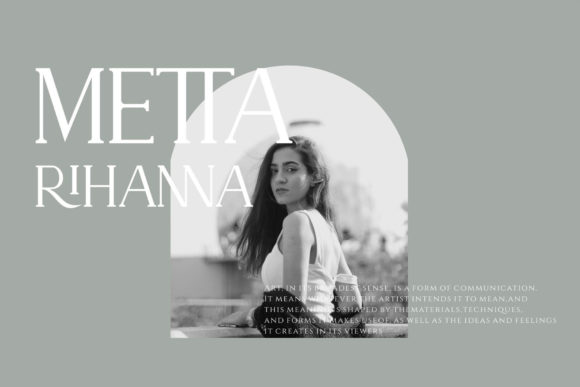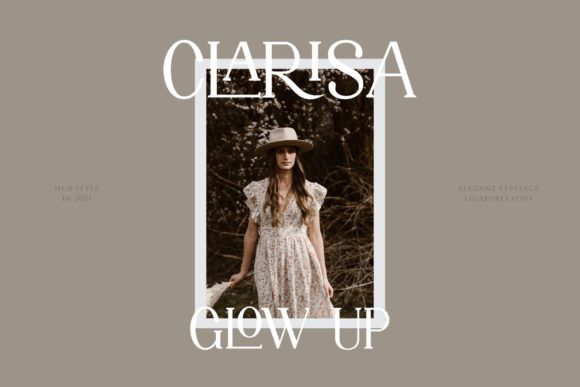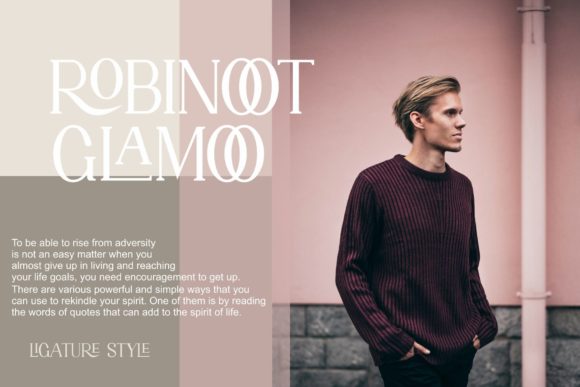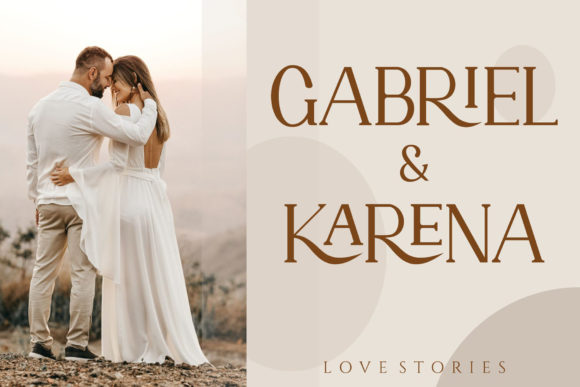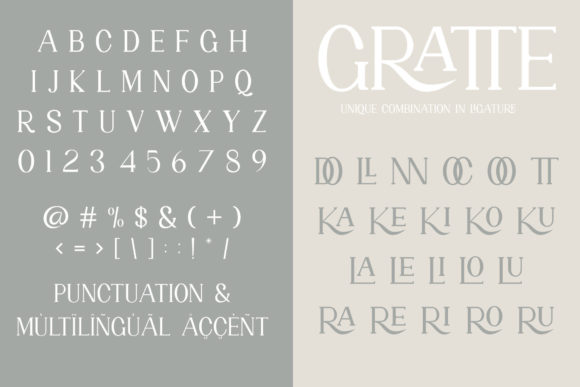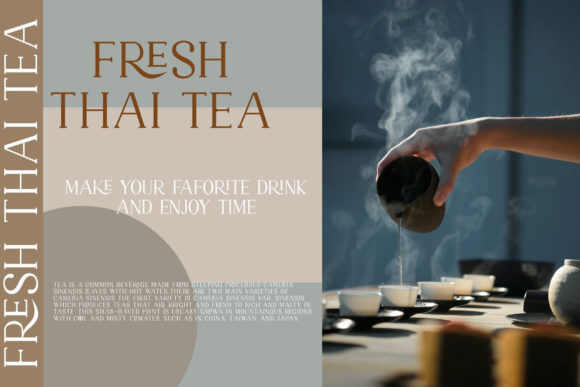
Introduction to Gratte Font
You know that moment when you’re working on a creative project and you need the perfect font to bring it all together? The one that screams elegance and sophistication, elevating your design from good to great? For designers, finding that elusive font can be a game-changer. And if you’re reading this, you’re probably on the hunt for a high-quality, authentic serif font that will add a touch of luxury to your next project.
Enter Gratte Font, a stunning addition to any design arsenal. This elegant serif font is the perfect solution for designers seeking a versatile and sophisticated typeface. With its refined lines and classic feel, Gratte Font is the ultimate design resource for creating stunning visuals that leave a lasting impression.
Gratte Font: A Valuable Design Resource
- High-quality font design with a transparent background, perfect for creative projects that require a clean and minimalist aesthetic.
- Features a unique, modern design with subtle nuances that add depth and character to any text-based element.
- Designed to be highly legible, even at small font sizes, making it ideal for use in a variety of applications, from print materials to digital interfaces.
Honest Review: Gratte Font
I recently had the chance to work with Gratte Font for a creative project, and I must say it’s a great addition to any design resource. This free download has a unique and modern look that adds a touch of sophistication to any design.
One of the things that stands out about Gratte Font is its high quality and versatility. It’s perfect for use on a transparent background, allowing the font to be the focus of the design. The font is also highly legible, making it ideal for use in a variety of contexts.
- Unique and modern design
- High quality and versatile
- Perfect for use on a transparent background
- Highly legible
- The font only comes in a few weights, which may limit its use in certain situations
- The font may not be suitable for use in very small sizes, as it can become difficult to read
Overall, I’m really impressed with Gratte Font. It’s a great addition to any design resource, and I would definitely recommend it to anyone looking for a high-quality font for their next creative project. ✨
Gratte Font is a versatile design resource that can elevate your creative project with its high-quality, unique style. This font is available for free download and comes with a transparent background, making it easy to integrate into your designs.
Tips for Getting the Most Out of Gratte Font
1. Experiment with different font sizes and colors to create a unique look.
2. Combine Gratte Font with other design elements to add depth and interest.
Gratte Font is perfect for:
1. Creative projects that require a unique and eye-catching font.
2. Designs that need a high-quality, transparent background.
Is Gratte Font suitable for high-resolution designs?
Yes, the Gratte Font is designed to be scalable and suitable for high-resolution designs. It features a high-quality, detailed design with a transparent background, making it perfect for use in a variety of creative projects, from print to digital media.
Can I modify the Gratte Font for my specific design needs?
The Gratte Font is a pre-designed font, and it’s not recommended to modify the font itself. However, you can use the font in conjunction with other design elements and tools to create a unique look for your project.